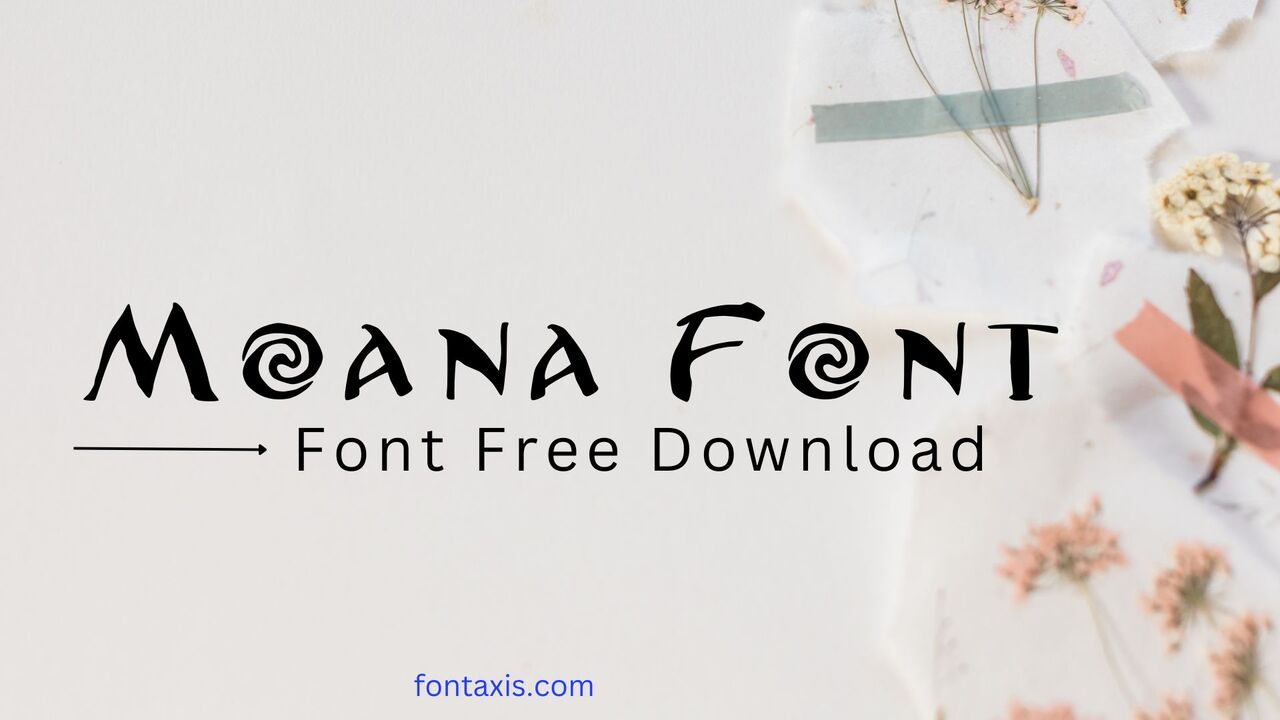
The Moana Font draws inspiration from the Polynesian culture and the Disney animated film Moana. This font captures the movie’s adventurous spirit and cultural richness, making it a favorite for themed designs. Its unique and decorative style adds a touch of exotic flair, perfect for projects that need a whimsical and vibrant look.
Moana Font’s Family Includes
- Moana Regular
- Moana Bold
- Moana Italic
- Moana Bold Italic
- Moana Outline
- Moana Shadow
- Moana 3D
- Moana Condensed
- Moana Extended
- Moanas
- Moana Pacifica
Where Moana Font Is In Use
The Moana Font is a popular choice for projects that need a playful and exotic touch. Its unique design elements make it suitable for various creative applications. Notable uses include:
- Movie posters and promotional materials
- Themed party invitations
- Children’s book covers
- Merchandise branding
- Scrapbooking
- Social media graphics
- Event banners
Moana Font FAQs
2. Why Is Moana Font Popular For Themed Designs?
Moana Font’s decorative and whimsical style makes it ideal for themed designs, capturing the essence of Polynesian culture and adventure.
3. What Trends Are Shaping The Future Of Moana Font?
As themed and cultural designs continue to gain popularity, Moana Font will likely be used more frequently in digital media, event branding, and creative merchandise.
4. When Did Moana Font Gain Popularity?
Moana Font gained popularity following the release of Disney’s Moana in 2016, becoming a go-to font for projects with a Polynesian theme.
5. What Free Font Is Closest To Moana Font?
“Pacifico” and “Samoan” are considered close alternatives to Moana Font for those seeking a free option with a similar style.
6. How Many Fonts Are In The Moana Family?
The Moana Font family includes a variety of styles, from Regular to 3D, offering options for different design needs.
7. What Are The Different Versions Of Moana Font?
Moana Font includes versions such as Regular, Bold, Italic, Bold Italic, Outline, Shadow, 3D, Condensed, and Extended, providing designers with a comprehensive set of tools.